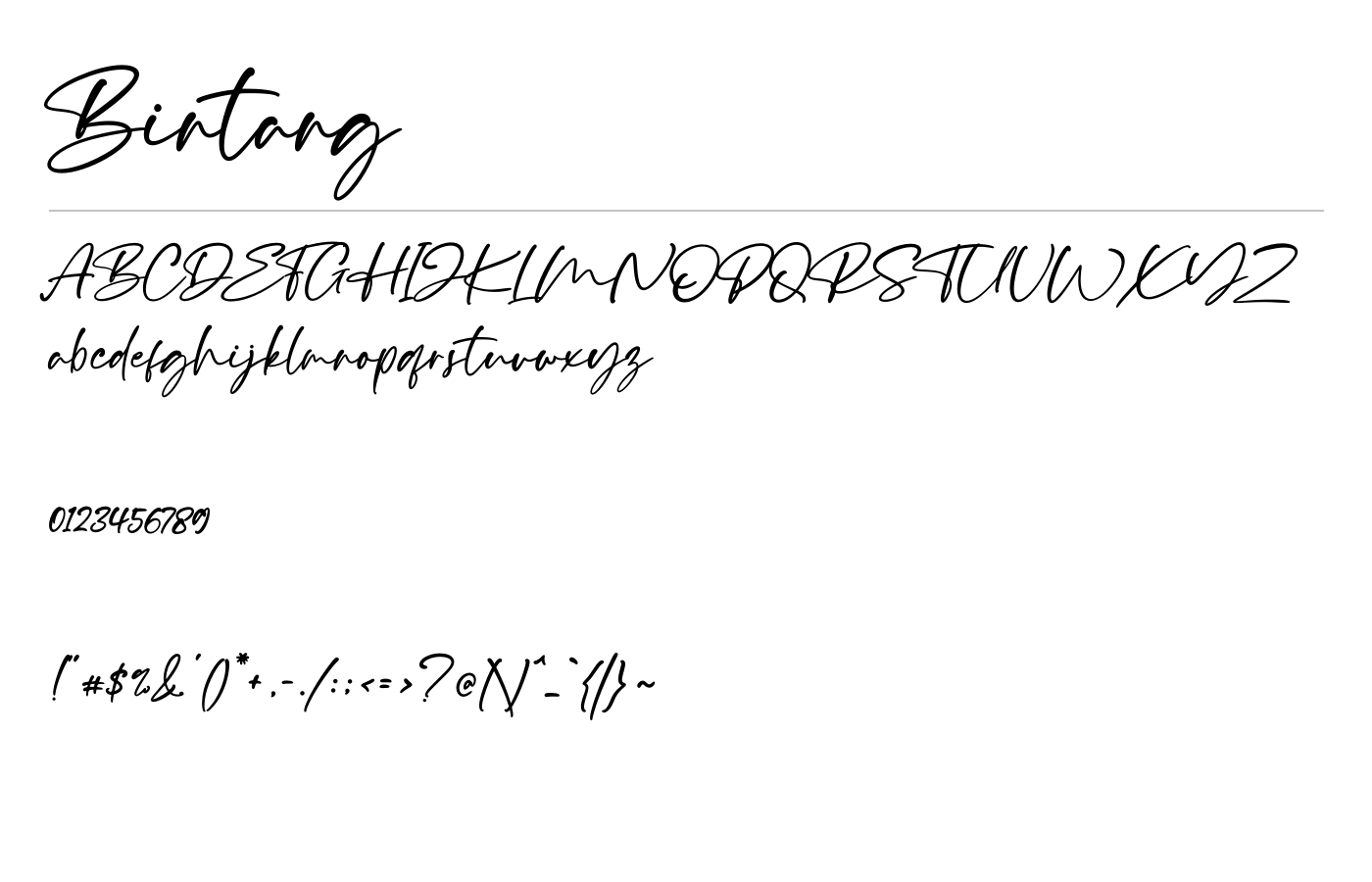
Bintang is a flowing, modern script font with a casual yet elegant vibe, featuring smooth, hand-drawn strokes and a slightly condensed style. Its light weight and playful letterforms make it ideal for creative branding, invitations, and stylish headlines that need a personal, handwritten touch. This font works best where a fresh, approachable, and artistic feel is desired.
Bintang Font
About Bintang Font
| Font family | Bintang Font |
| Designer | Pen Culture |